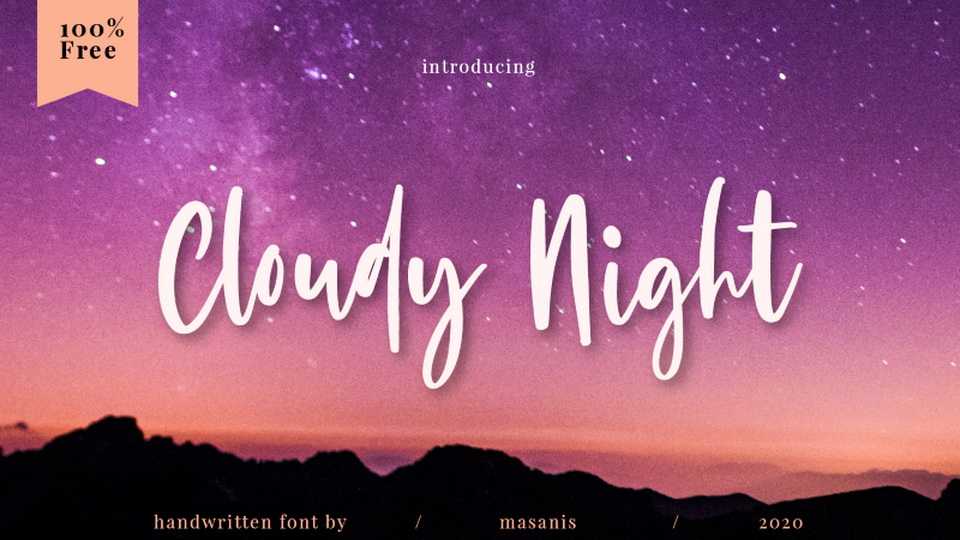
Download Cloudy Night font, a lovely handwritten script with a natural flow. Cloudy Night is suitable for crafts, quote, greeting cards, bussiness card, event, invitation, header menu, display, logo, blog slider, branding material, posters, and more!
Designer: Mas Anis Studio